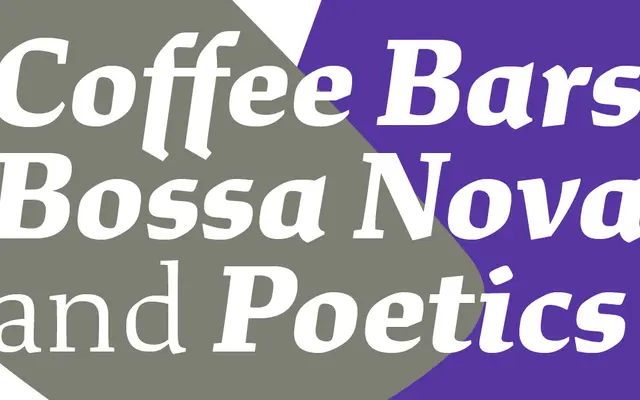
XYZ Type · Jesse Ragan, Rudolph Ruzicka · 2018
A humanist serif by Jesse Ragan, rooted in a 1968 hand-drawn alphabet by Czech-American designer Rudolph Ruzicka, with twelve styles and variable font support.
Drawn from Rudolph Ruzicka's 1968 hand-lettered alphabet, Study pairs calligraphic details with wide proportions and bright counterforms to read well at both display and text sizes. Distinctive features include the poised spine of the S, a wide-eyed lowercase e, and muscular k limbs, while the italic introduces quick pen strokes in place of conventional serifs. Named among Typographica's favourite typefaces of 2018 and used by Dartmouth College, it spans twelve styles including a variable font.
Study draws on calligraphic hand-drawn letterforms with organic, pen-influenced details including rustic serifs and quick stroke transitions in the italic, placing it firmly in the humanist serif tradition.